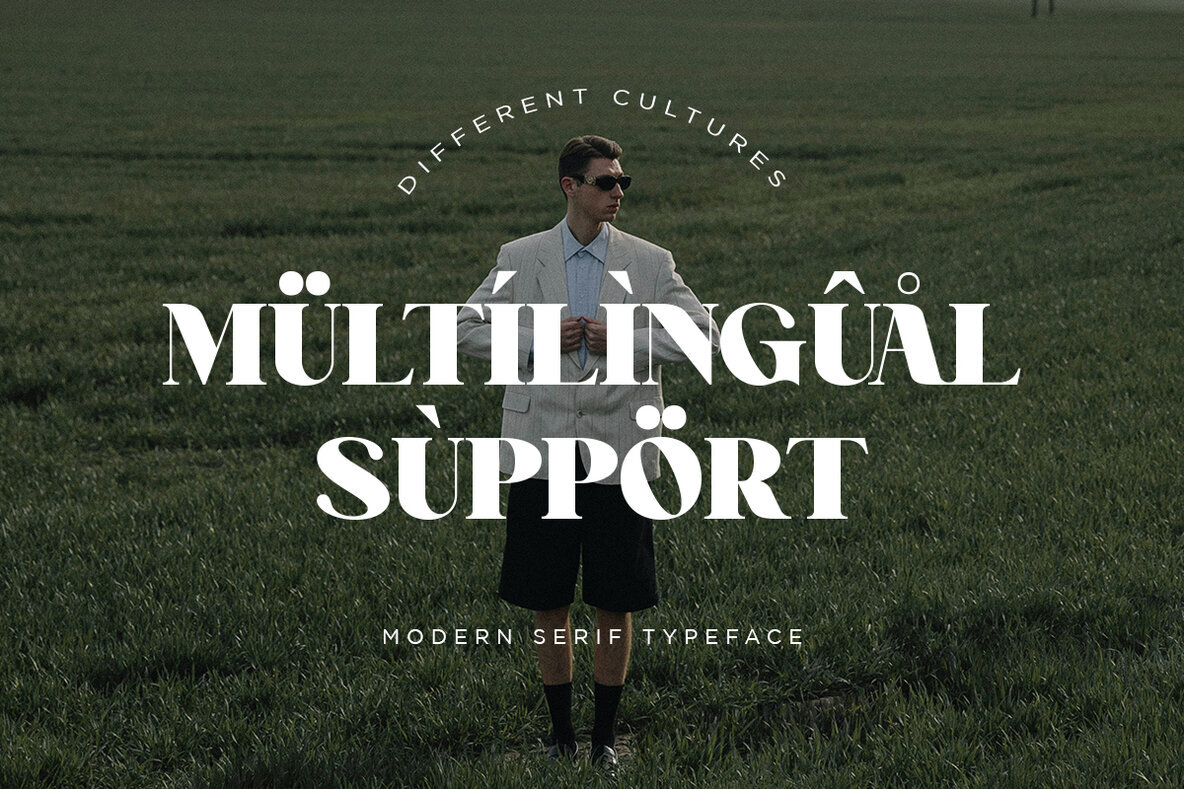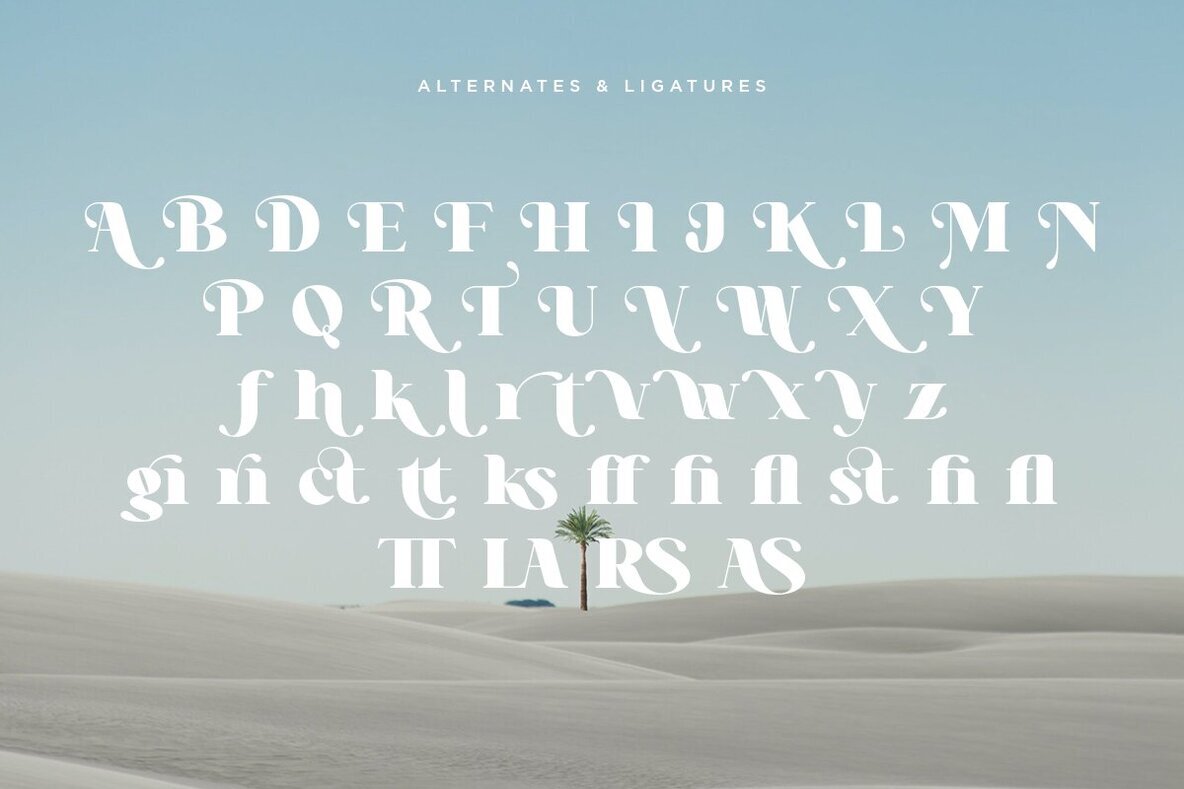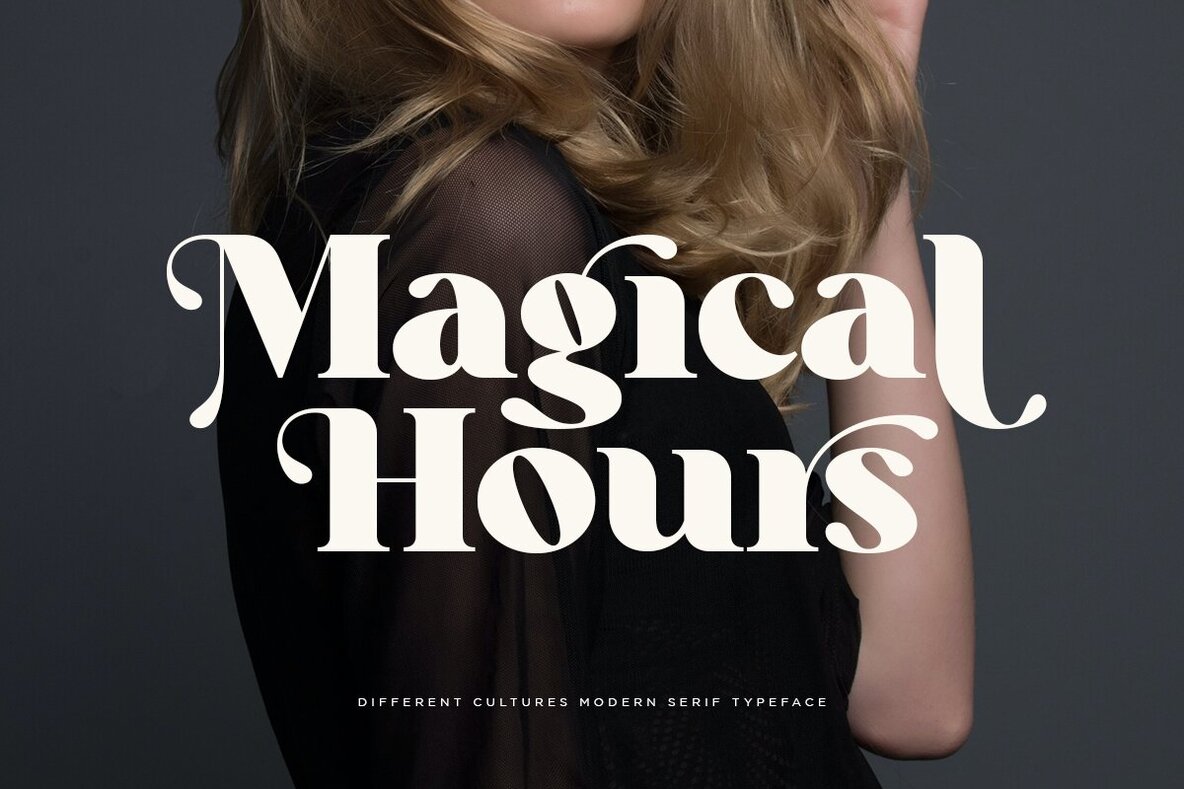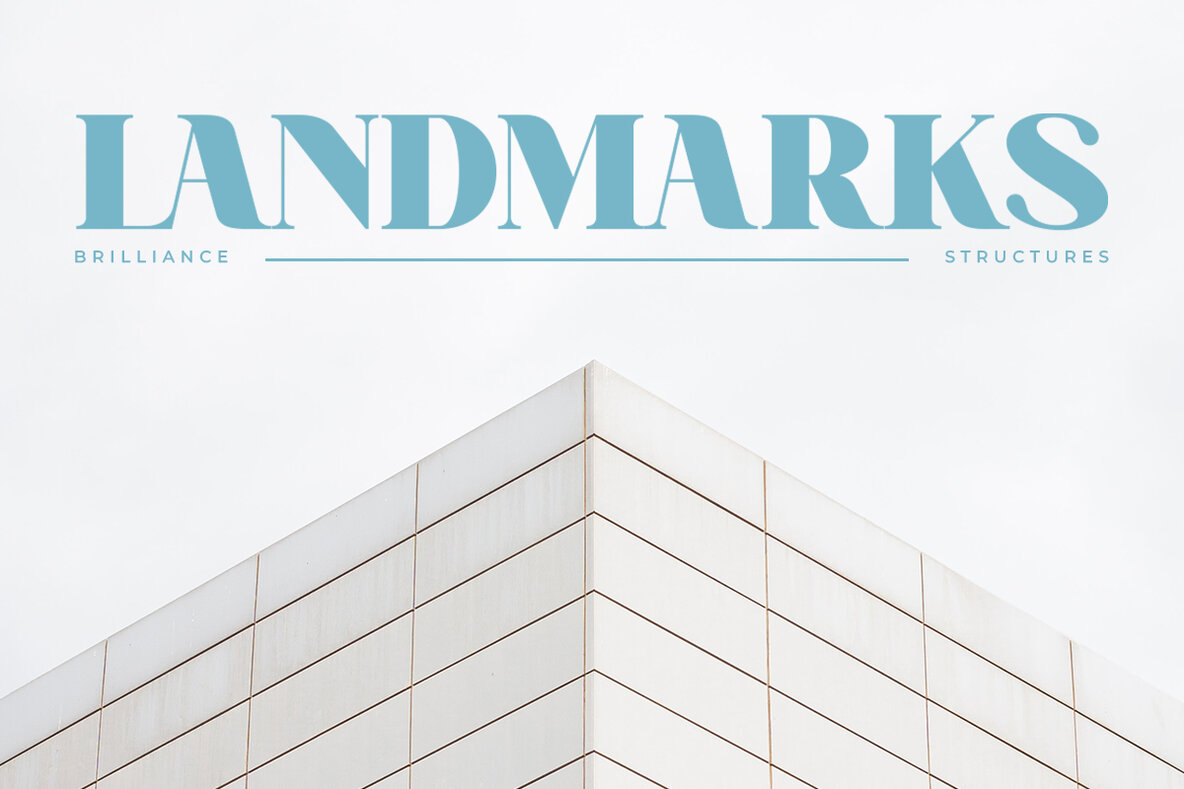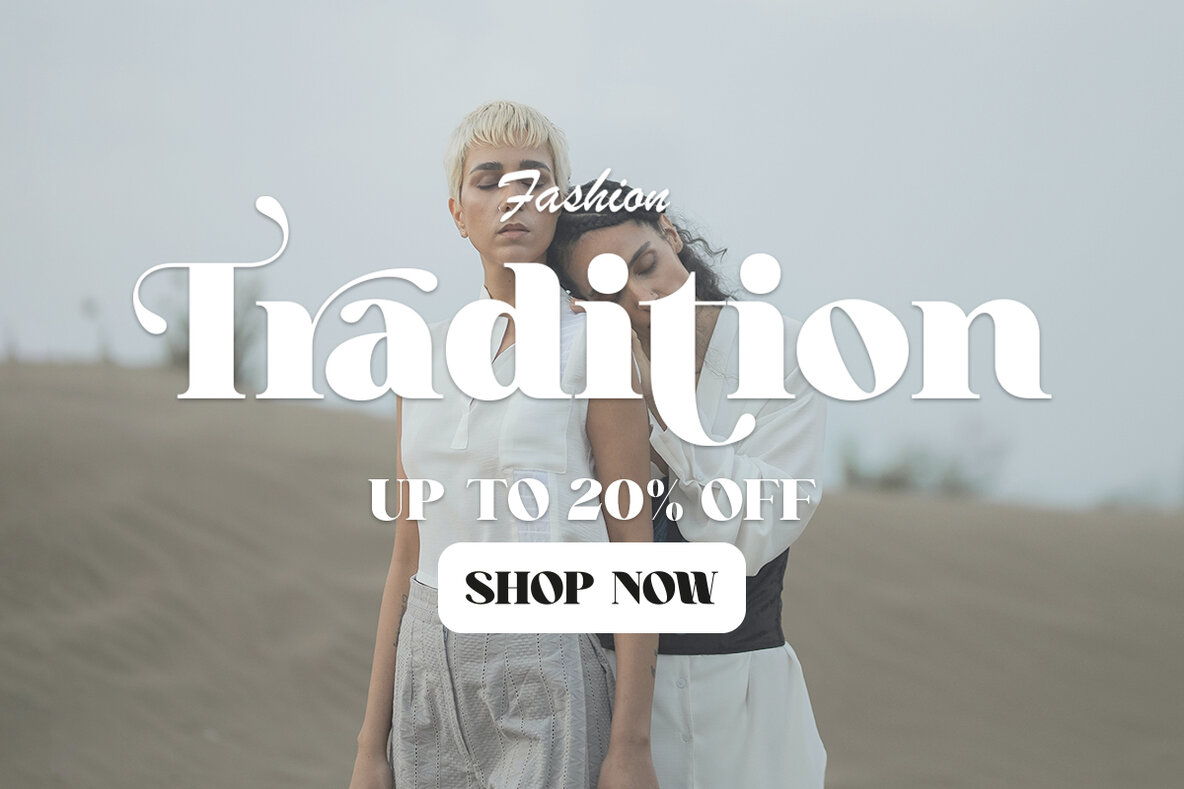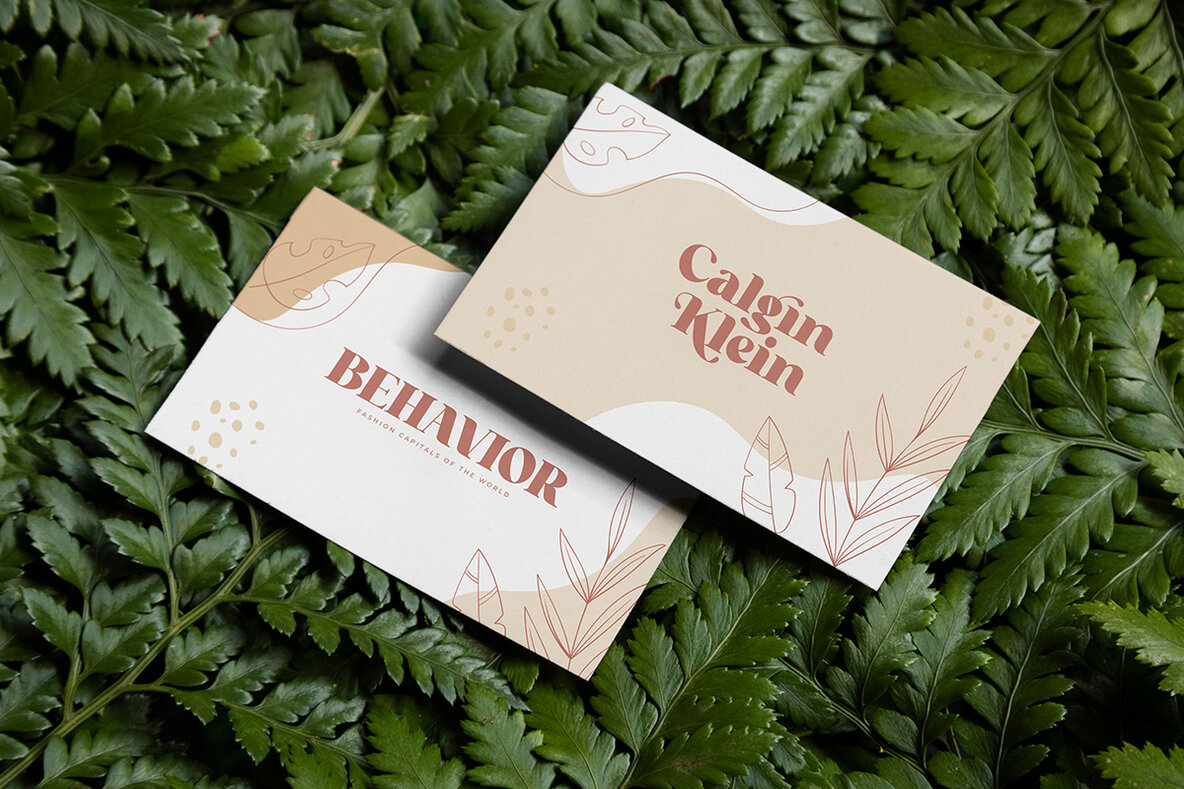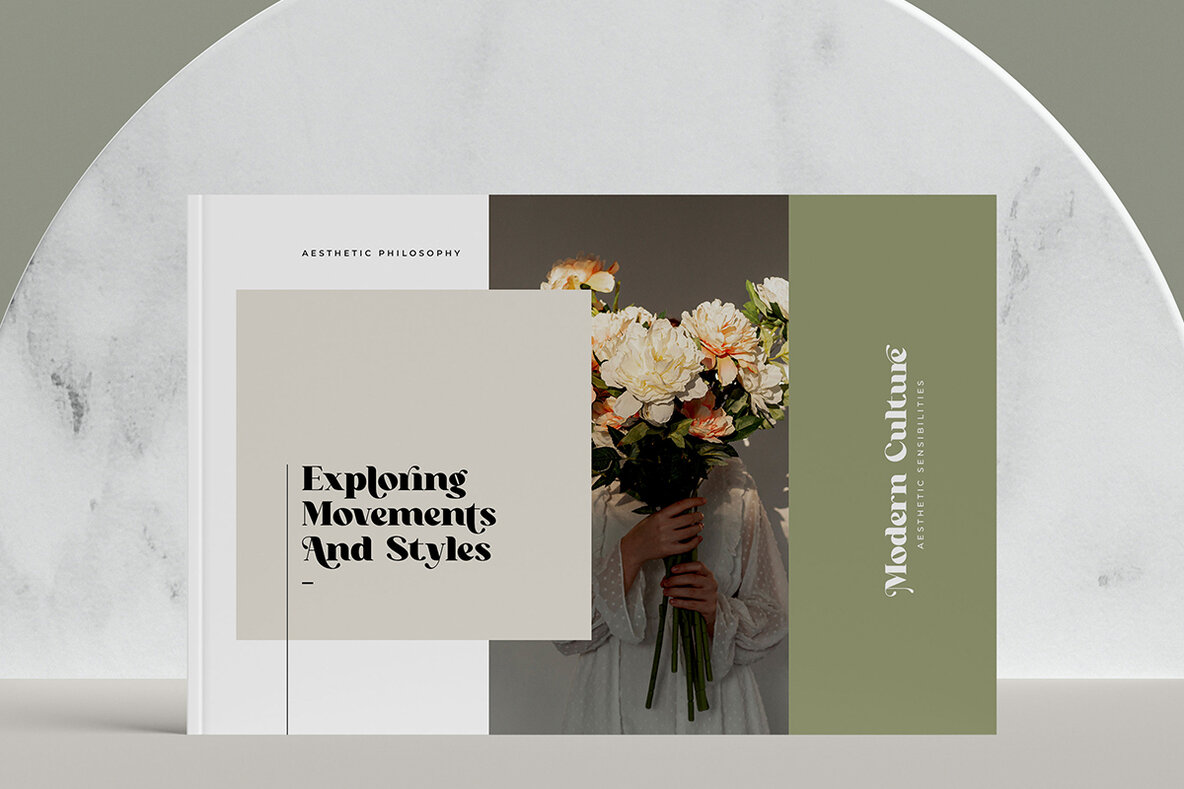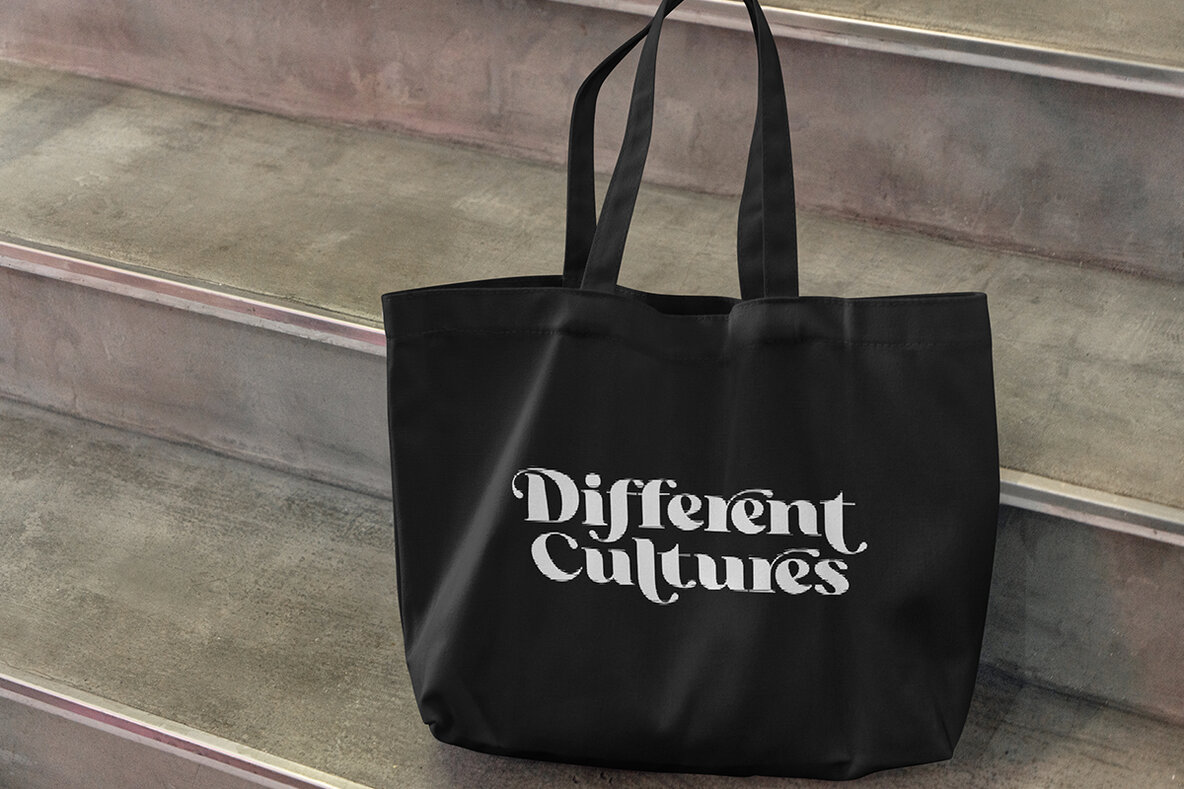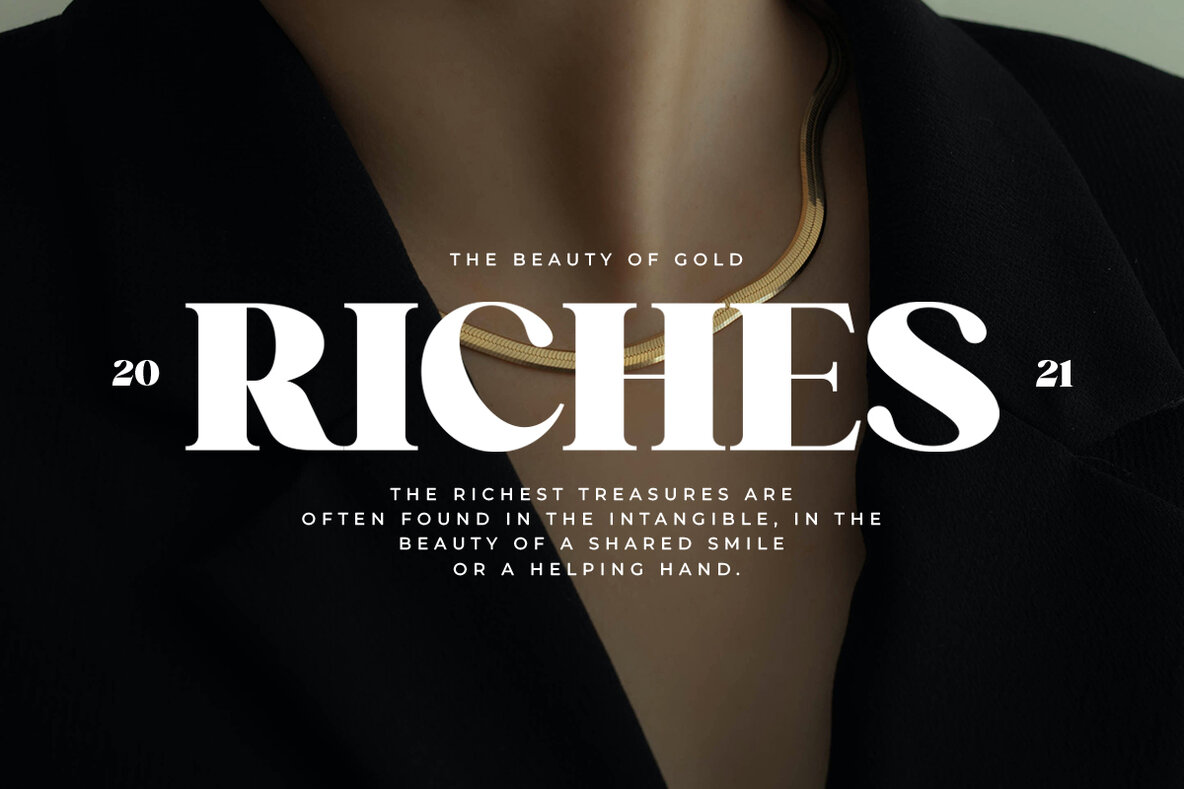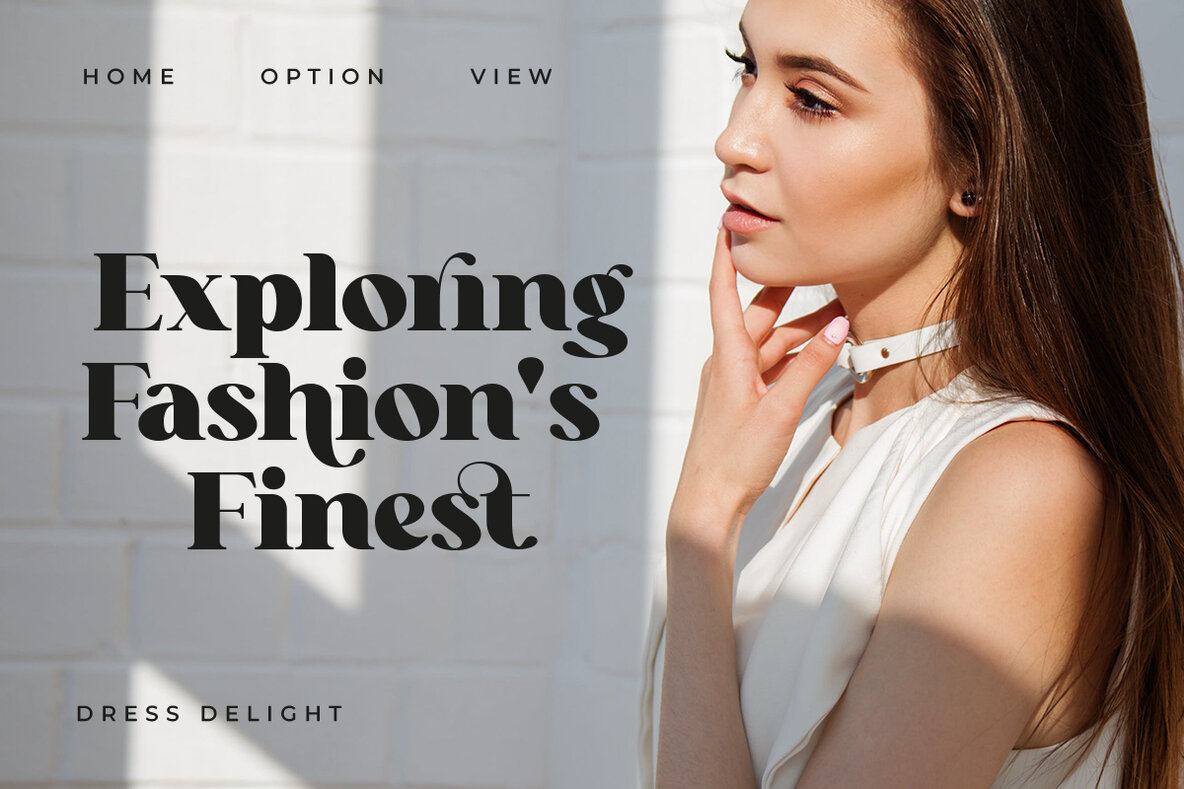
Different Cultures Font
Different Cultures Regular
Different Cultures Italic
Different Cultures is a modern serif display font that combines bold and thin strokes to create a stunning visual balance. Every curve and detail of this font is meticulously crafted to make a significant impact in your design projects. Explore a diverse range of alternates and ligatures to customize and enhance your typographic creations. Different Cultures is more than just a font; it offers a seamless blend of modernity and timeless elegance. The font supports a variety of languages, including Afrikaans, Albanian, Catalan, Croatian, Czech, Danish, Dutch, English, Estonian, Finnish, French, German, Hungarian, Icelandic, Italian, Lithuanian, Maltese, Norwegian, Polish, Portuguese, Slovenian, Spanish, Swedish, Turkish, and Zulu.Different Cultures: Modern Serif with Contemporary Elegance
Customizable Features
Multilingual Support